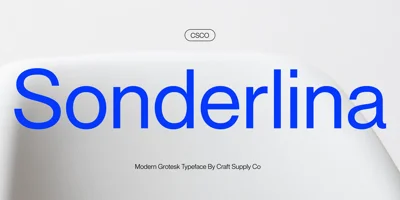
Sonderlina Font is perfect for unique boutique branding, artisan craft studios, bespoke fashion designers, exclusive art galleries, personalized stationery collections, custom jewelry packaging, handmade product labels, creative workshop signage, individualistic lifestyle brands, and any distinctive project that celebrates the extraordinary beauty of singular experiences and the irreplaceable value of one-of-a-kind artistic expression.
What makes Sonderlina Font exciting is its unique elegance that captures the rare beauty of extraordinary moments and the singular charm of experiences that exist nowhere else in the world. This typeface embodies the essence of individual distinction with gracefully unique letterforms that seem crafted specifically for moments that defy ordinary description and touch the soul in ways that standard experiences cannot. The font's exceptional character makes it perfect for brands and projects that want to communicate rarity, exclusivity, and the profound appreciation for life's most singular and unrepeatable moments.
The Sonderlina Font family includes multiple weights and distinctive variations, featuring light, regular, and bold versions along with ornamental flourishes and alternate characters that enhance the font's unique personality. This comprehensive collection allows designers to create authentically distinctive typography that maintains the font's signature exceptional character while providing flexibility for various luxury and artisanal design applications.
When exploring authentic distinctive typography, Sonderlina Font offers designers an exceptional opportunity to work with a typeface that genuinely captures the spirit of singular beauty and extraordinary experience. This font demonstrates innovative design thinking by incorporating the individual grace and exceptional quality that define both artisanal craftsmanship and the contemporary appreciation for unique experiences that cannot be replicated or mass-produced.
Professional designers appreciate Sonderlina Font for its ability to instantly communicate exclusivity and artisanal quality across various luxury and creative platforms. The font's distinctive character makes it particularly effective for bespoke designers, luxury artisans, and exclusive brands seeking to establish connections with audiences who value uniqueness, craftsmanship, and the irreplaceable beauty of individually created experiences and products.
The timeless appeal of Sonderlina Font lies in its perfect representation of singular beauty and exceptional experience that continues to resonate with people seeking authentic uniqueness in an increasingly standardized world. This typeface serves as a celebration of individual artistry and the human desire to create and experience beauty that exists nowhere else.
For creative professionals working with luxury artisanal and exclusive brands, Sonderlina Font represents the ultimate typography solution that brings authentic singular elegance and distinctive beauty to any application, ensuring designs reflect the exceptional quality and unique character that define the most treasured one-of-a-kind experiences and artisanal creations.